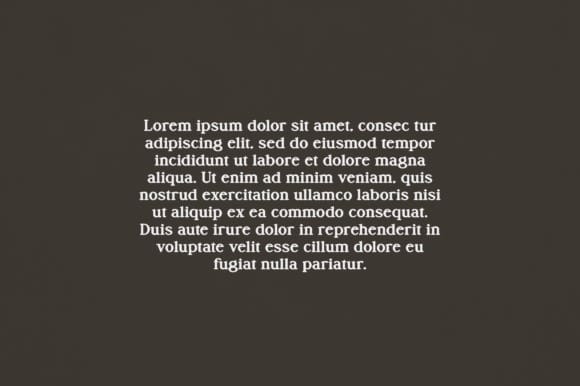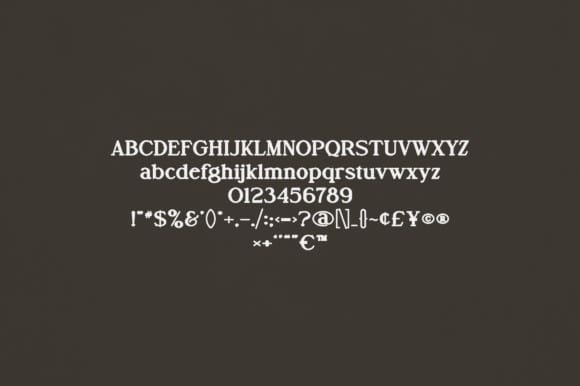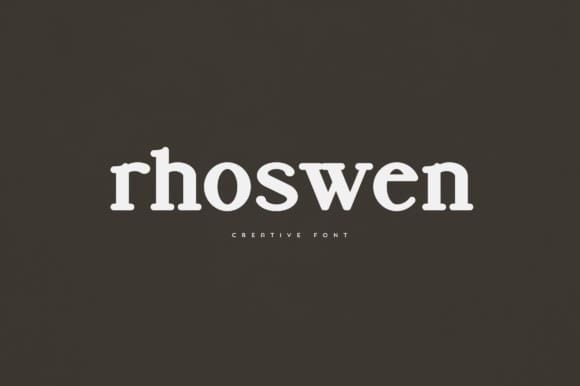
Rhoswen Font
Rhoswen Font is an elegant and versatile display font that will make your typography truly unique! It will enchant every logo, branding, headline, or plain text!